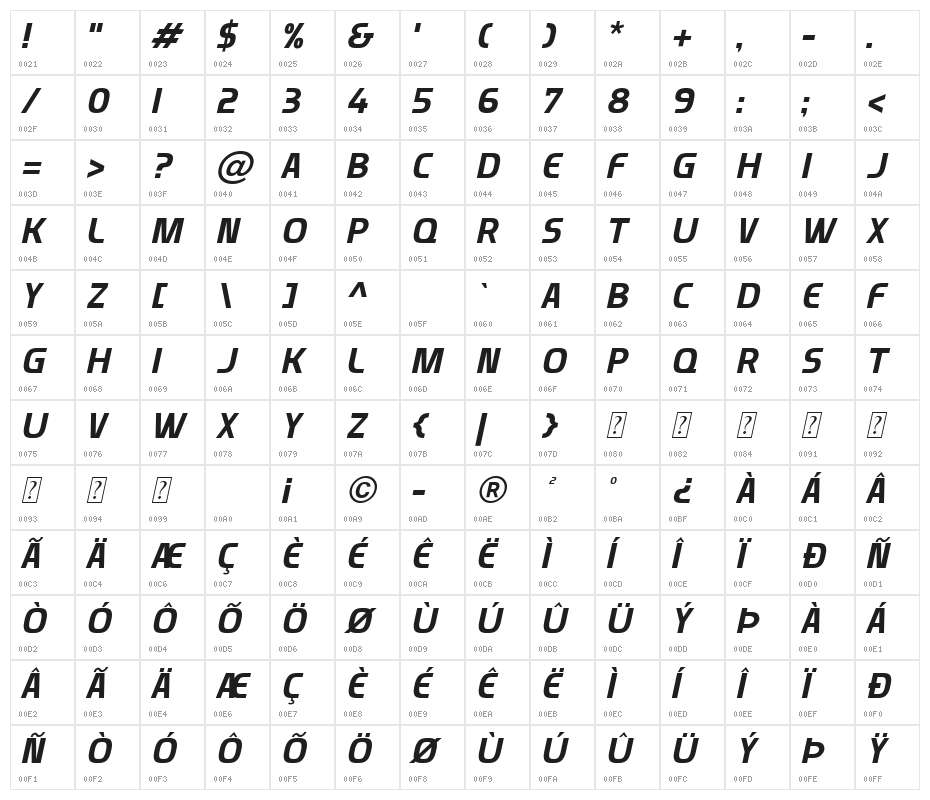
Munistic Italic Font
Munistic Italic Description
This font features a sleek, italicized design with a modern and dynamic appearance. The characters are slightly slanted, giving a sense of motion and energy. The strokes are consistent and smooth, with a medium contrast that maintains readability while adding a touch of elegance. The uppercase and lowercase letters are well-proportioned, and the numerals are clear and distinct. Special characters are designed to complement the overall style, making this font versatile for various applications.
Use CaseHeadlines, Logos, Advertising
Proposed ProjectsIdeal for branding, advertising, and editorial design projects that require a modern and dynamic look.